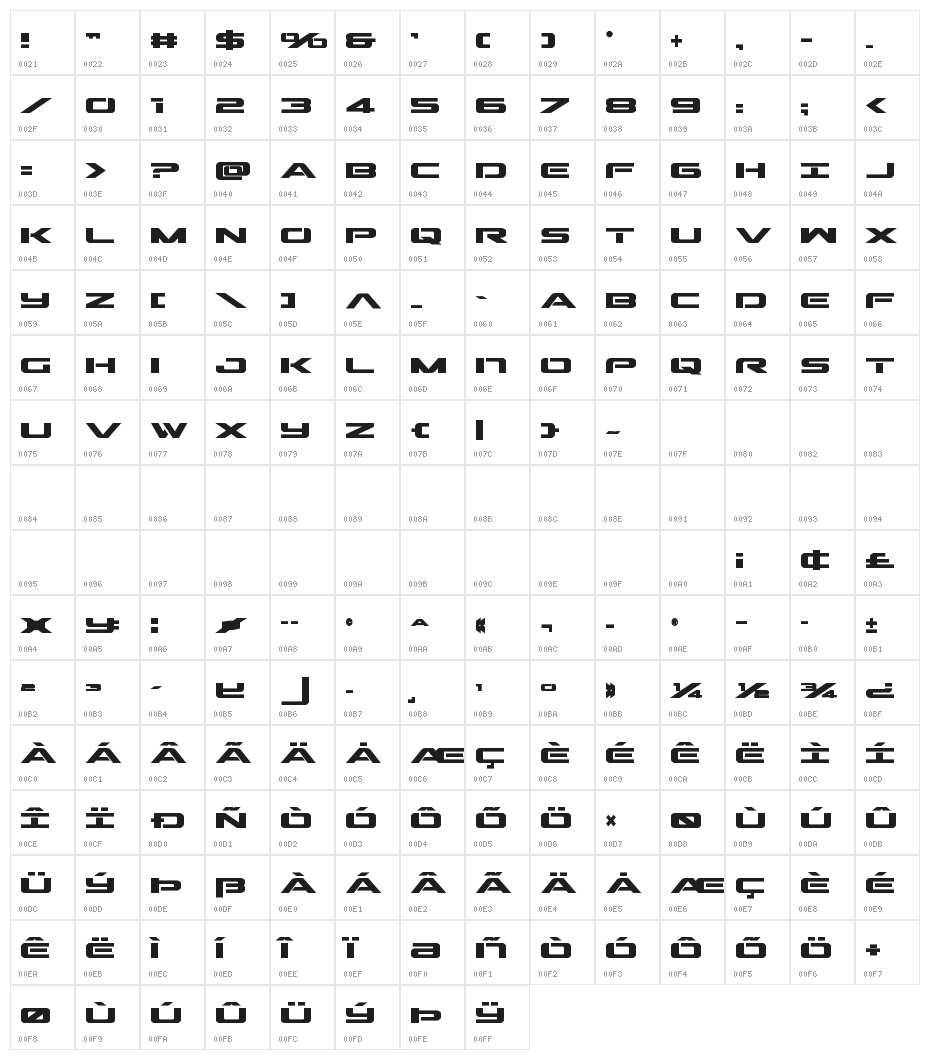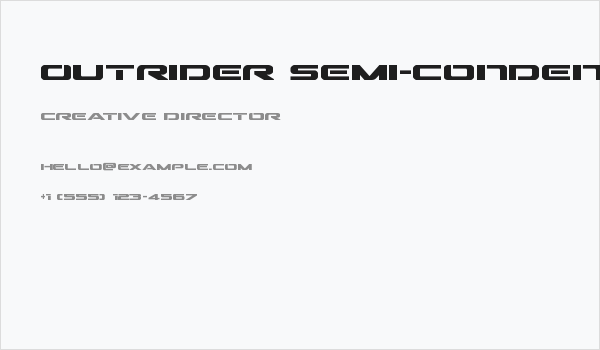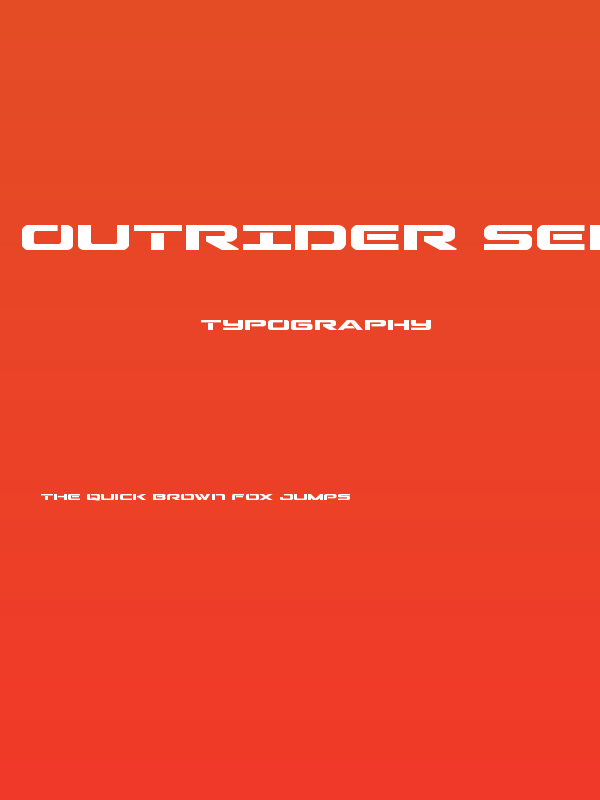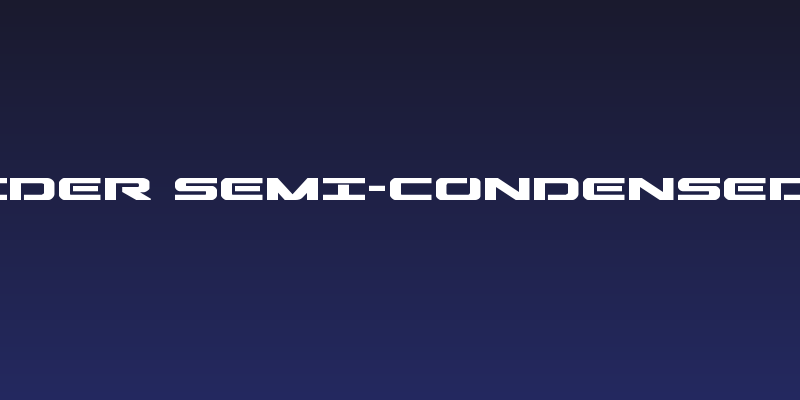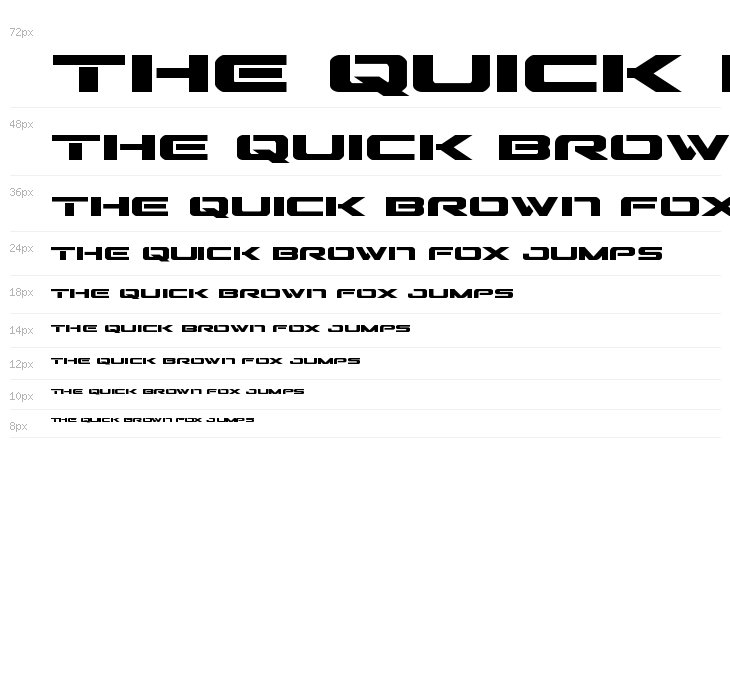
Outrider Semi-Condensed Bold Font
Outrider Semi-Condensed Bold Description
This font presents a bold and futuristic aesthetic, characterized by its semi-condensed letterforms and strong geometric shapes. The uppercase letters are particularly striking, with sharp angles and a sense of forward motion, making it ideal for dynamic and modern designs. The lowercase letters maintain the same boldness, ensuring consistency across different text cases. The numerals are equally robust, with a uniform thickness that complements the overall style. Special characters are designed to match the bold and angular theme, providing a cohesive look throughout.
| Proposed Projects | Ideal for sci-fi themed projects, technology branding, video game titles, and modern advertising. |